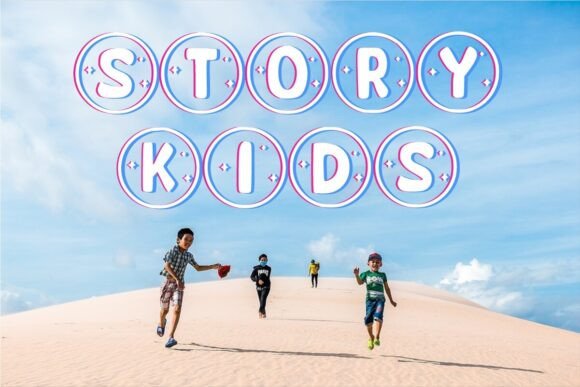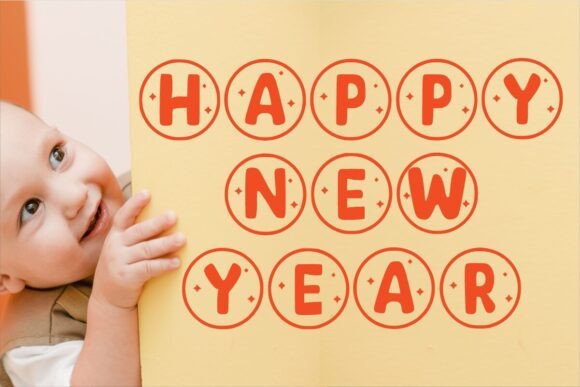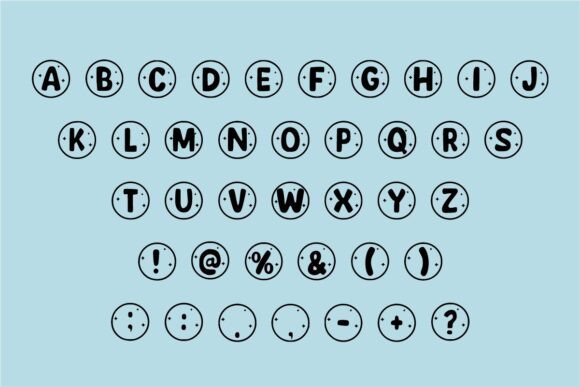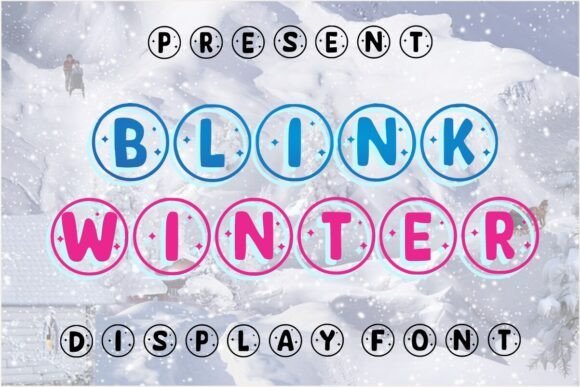
Introduction to Blink Winter Font
Blink Winter is a Christmas font caracter and friendly display font.
With a casual and easy-to-read character, this font is perfect for children-themed designs and school projects .